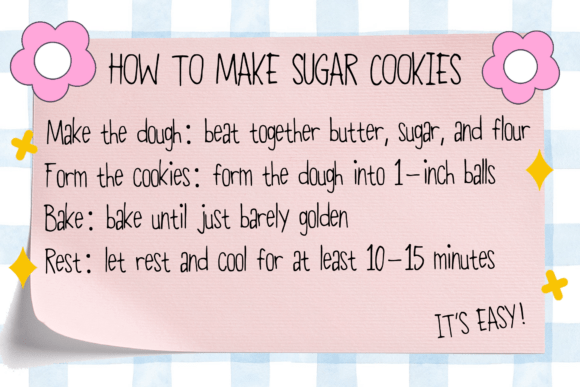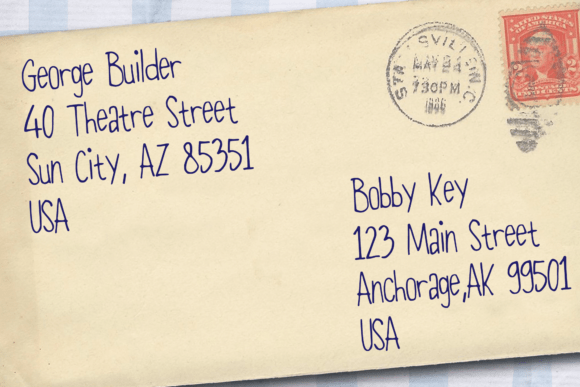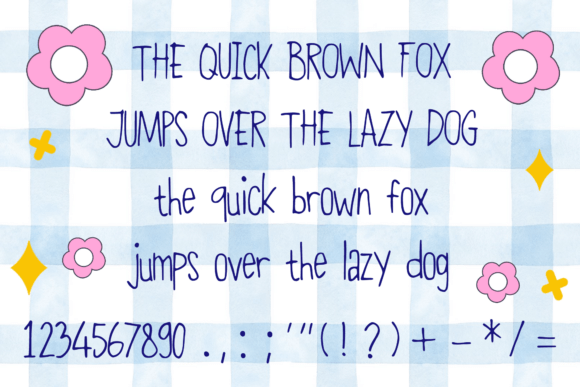
Introduction to Skinny Handwriting Font
Skinny Handwriting is a tall, skinny, and playful handwritten font that adds a fun touch to various design projects.
It is well-suited for a wide range of creative ideas, including stickers, t-shirt designs, logos, and magazine or book covers This fontโs unique style is also perfect for comics and cartoon drawings.
Key Features of Skinny Handwriting Font